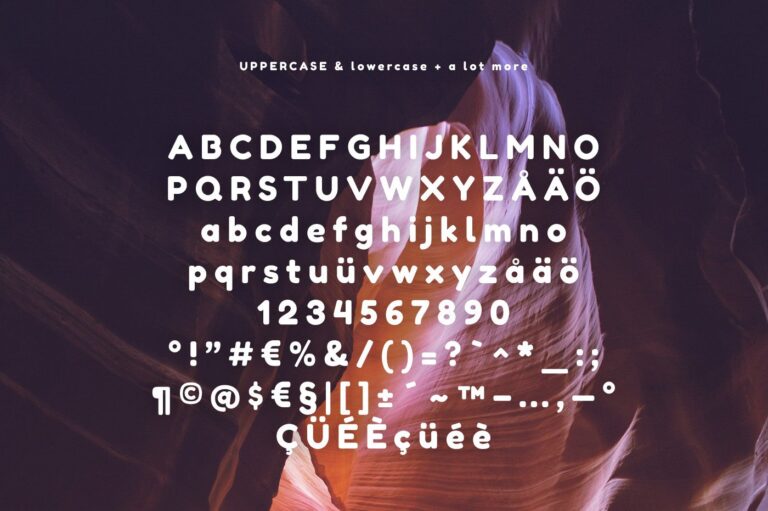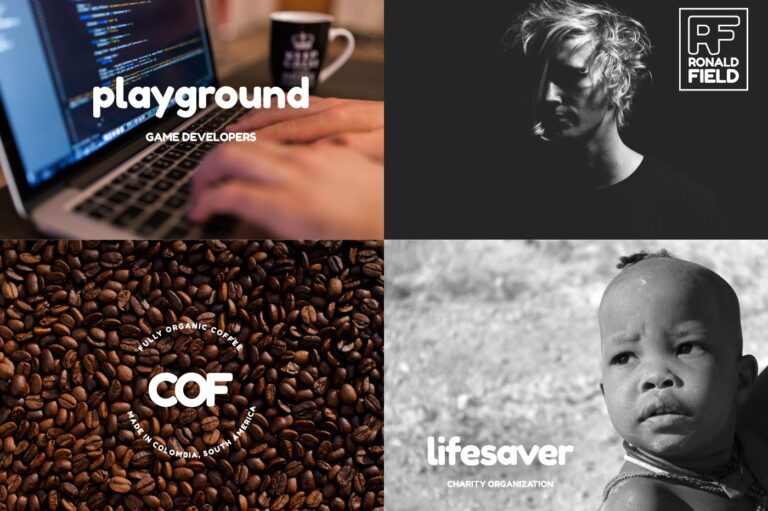
Fredoka One Font Powerpoint
Fredoka One Font Powerpoint. We have 10 tips for you with our few examples of powerpoint slides and templates that will. Designed by milena brandao, you can start designing with fredoka one in easil right now or find it in google fonts.
Making the web more beautiful, fast, and open through great typography This license is available with a faq at: Fredoka one is a big, found, fun font that’s perfect for headings.
Fredoka One Is A Big, Round, Bold Font That Is Perfect For Adding A Little Fun To Any Headline Or Large Text.
The template contains health analysis charts, which will make your presentation more perfect. All images on the demo is just for preview purpose only and not actually included in the files. Download fredoka font family · free for commercial use · fredoka one is a big, round, bold font that is perfect for adding a little fun to any headline or large text.